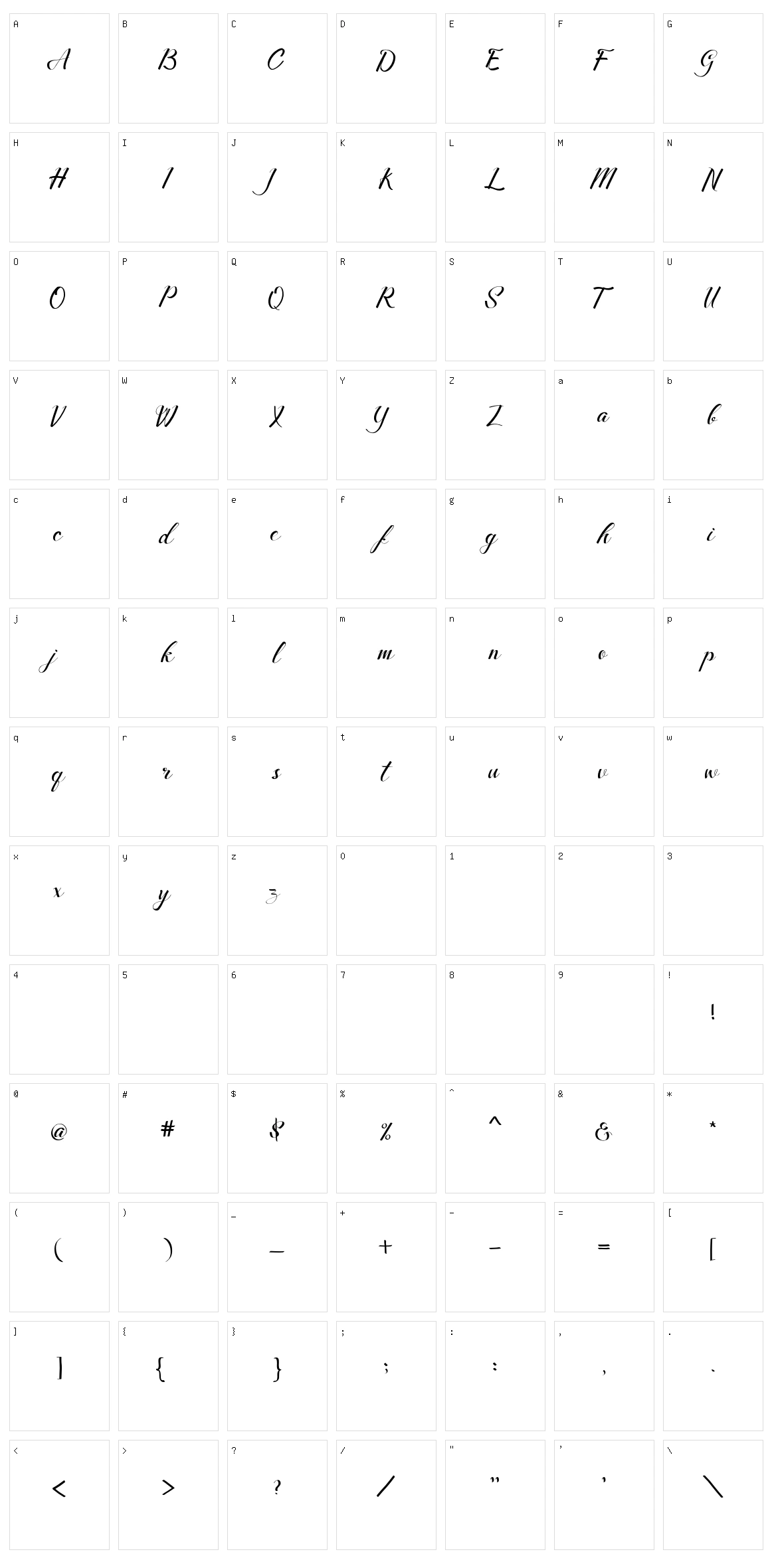
Introducing Merthy handwriting font with cool character! Merthy come more than 350 glyphs and this perfect for poster design, book covers, merchandise, fashion campaigns, newsletters, branding, advertising, magazines, greeting cards, album covers, and quote designs and more.
Feature
UPPERCASE
lowercase
Number & Symbol
International Glyps
Alternative UPPERCASE
Alternative lowercase
Ligatures lowercase